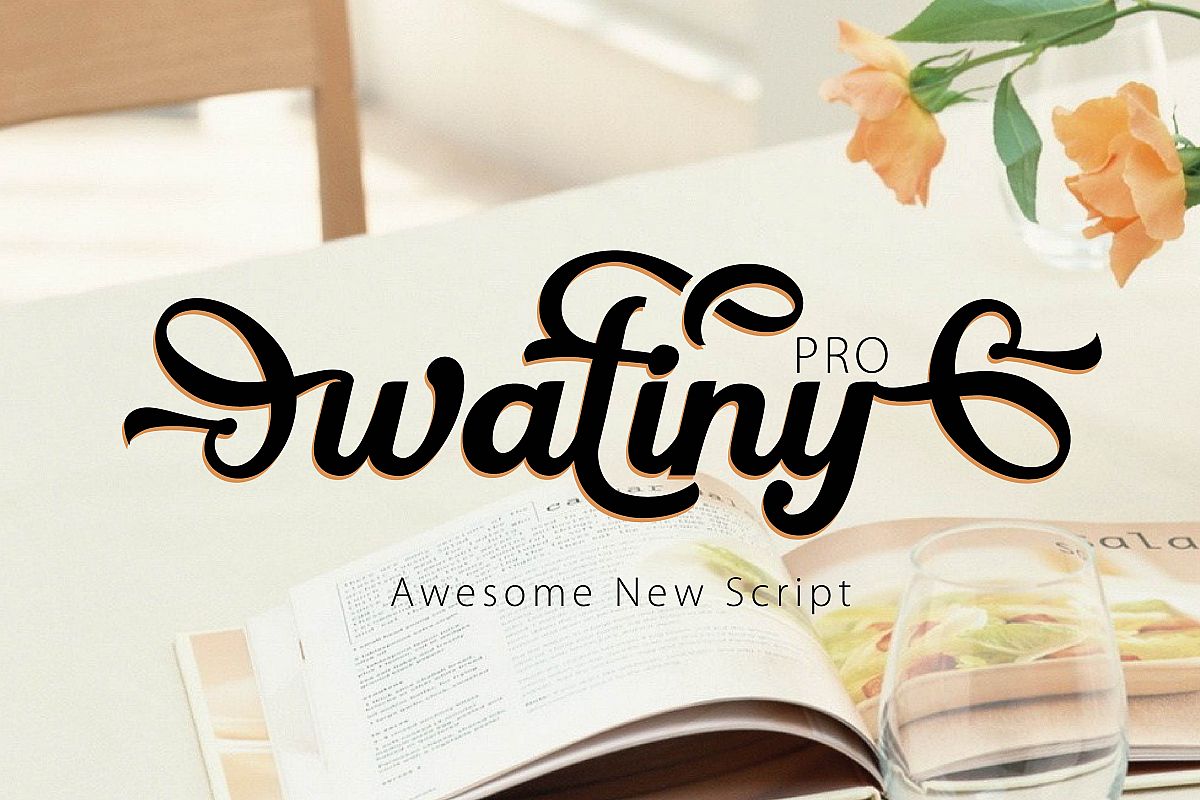
Wattiny Pro
Proudly presents our latest product Watiny. I hope you are interested
in this font,The fonts are great for product logo,wedding card logo,
Banner, Graphic design, clothing brand logo, and much more.
Watiny Font equipped with :
• Uppercase,
• lowercase
• numeral
• punctuation
• Symbol
• International Glyphs
• Stylistic alternates
• Stylistic Set
• Swash